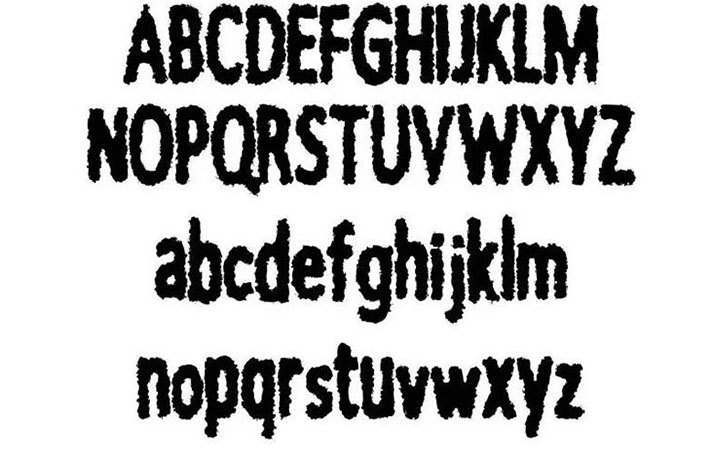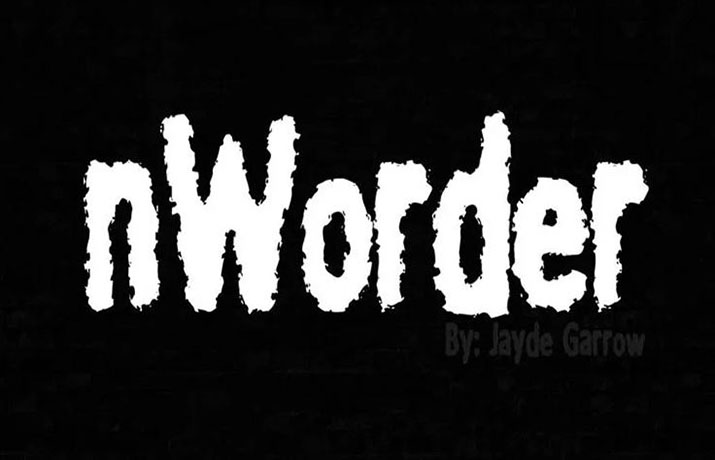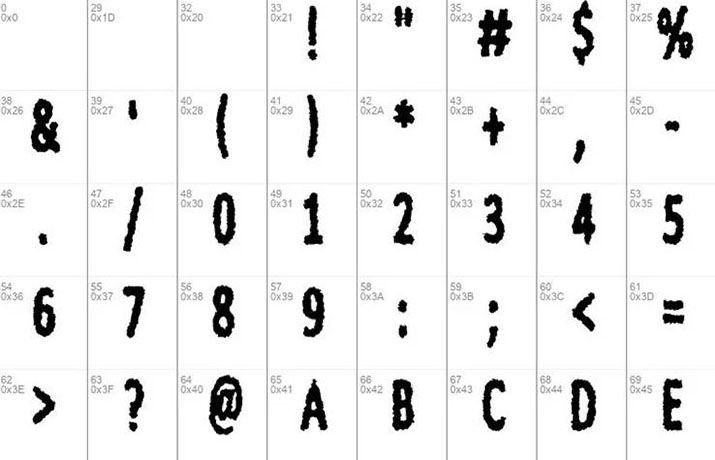
nWorder Font is a fancy destroy typeface that has a jagged edge and ink splatter look. Jayde Garrow is known as the primary designer of this font.
Its texture is created in irregular manners in which you will feel that its texture is created with eroded corners and splatter ink. It seems like someone has bits over the texture from the outside.
Its aggressive and bold appearance makes it ideal for various works such as gritty posters, album covers, fashion statements, movie posters, banners, headers, titles, and more.
nWorder typeface is available in a single weight along with True Type and Open Type features. This font includes 98 glyphs, upper & lowercase letters, numbers, and some punctuation marks. Moreover, it also supports 34 global languages.”
Style:Fancy, Destroy, Display
• Movie posters, game titles, game development, cartoon posters, comic covers, product designs, banner ads, distinctive emblems, social media banners, headers, product packaging, movie posters, flyers, brochures, special event cards, and more can all be made with this assistance.
This font supports 34 languages.
What is nWorder Font?
nWorder Font is a fancy destroy typeface that has a jagged edge and ink splatter look. Jayde Garrow is known as the primary designer of this font.